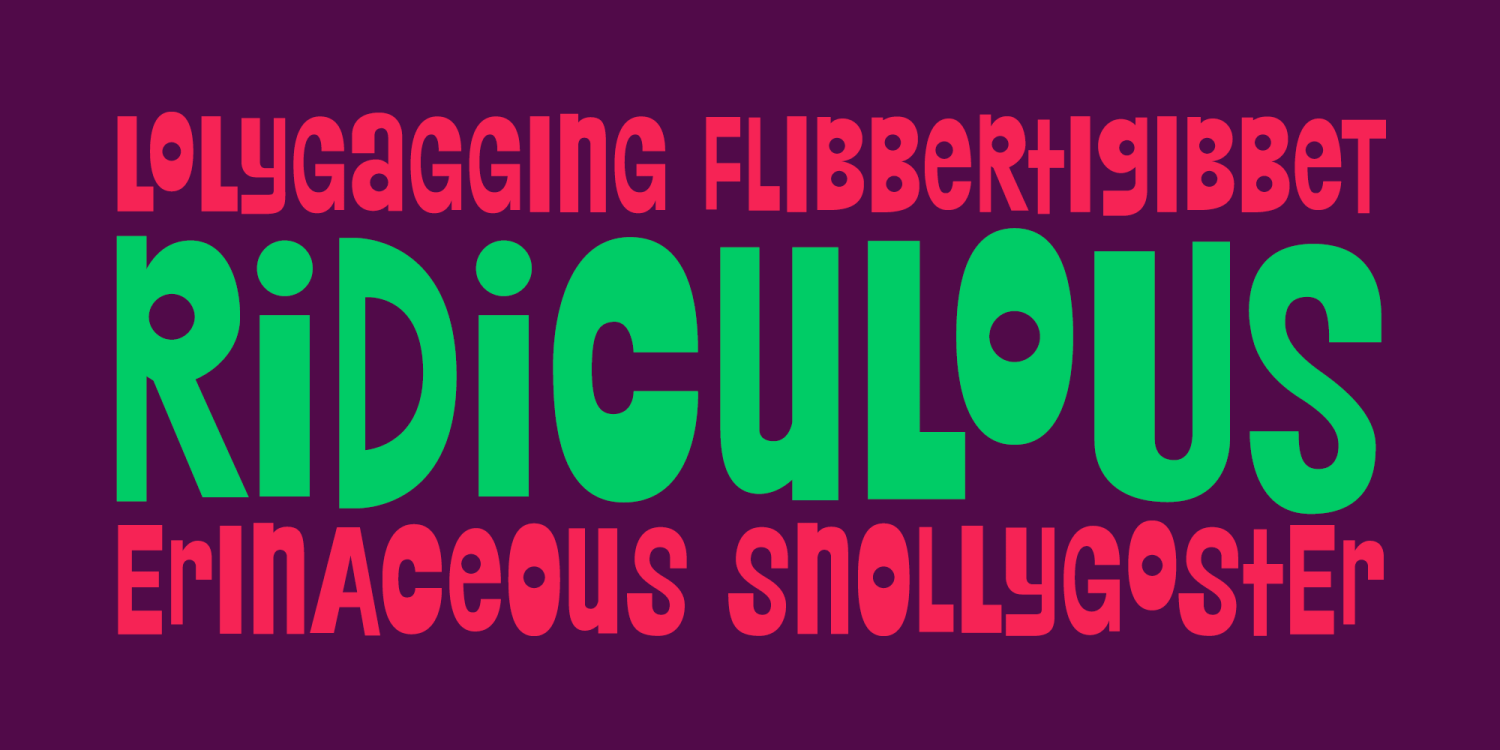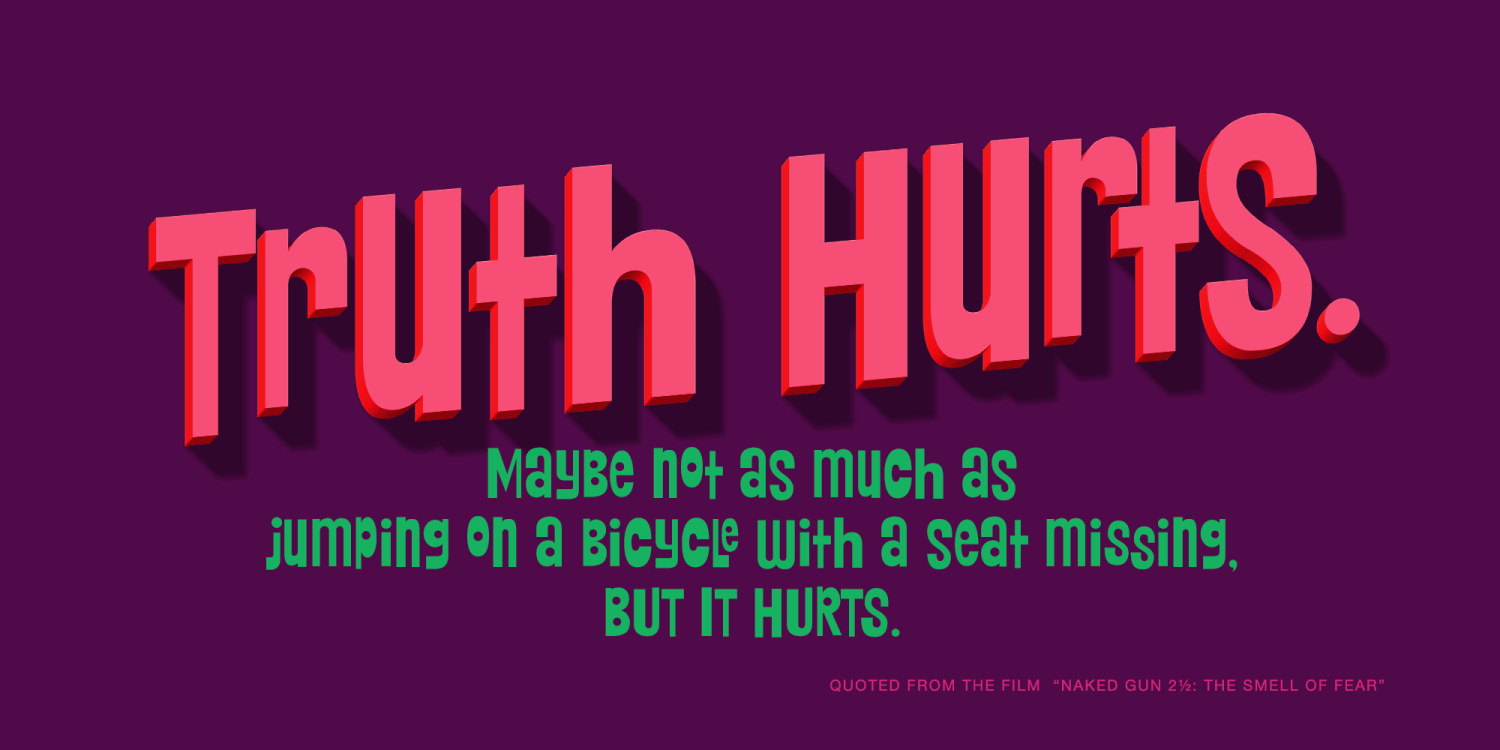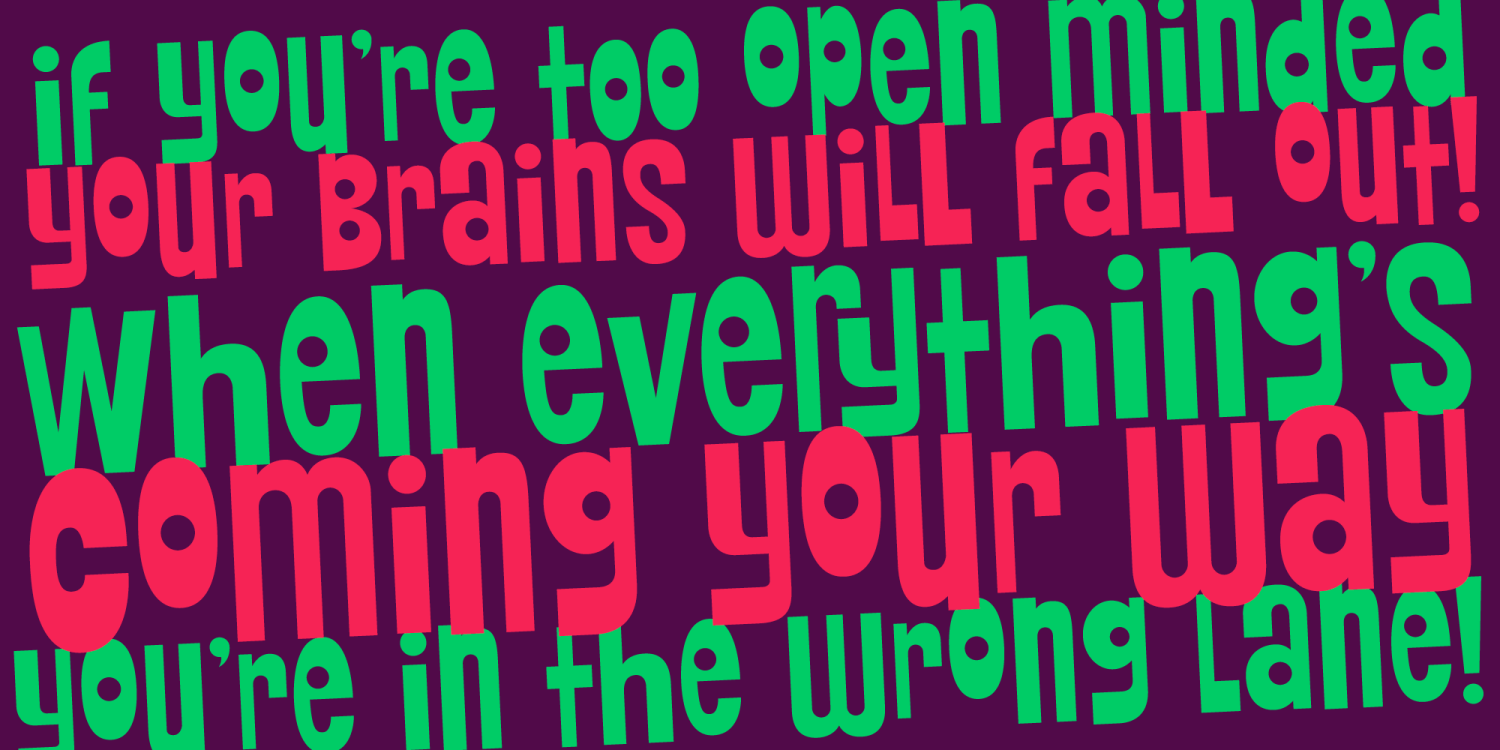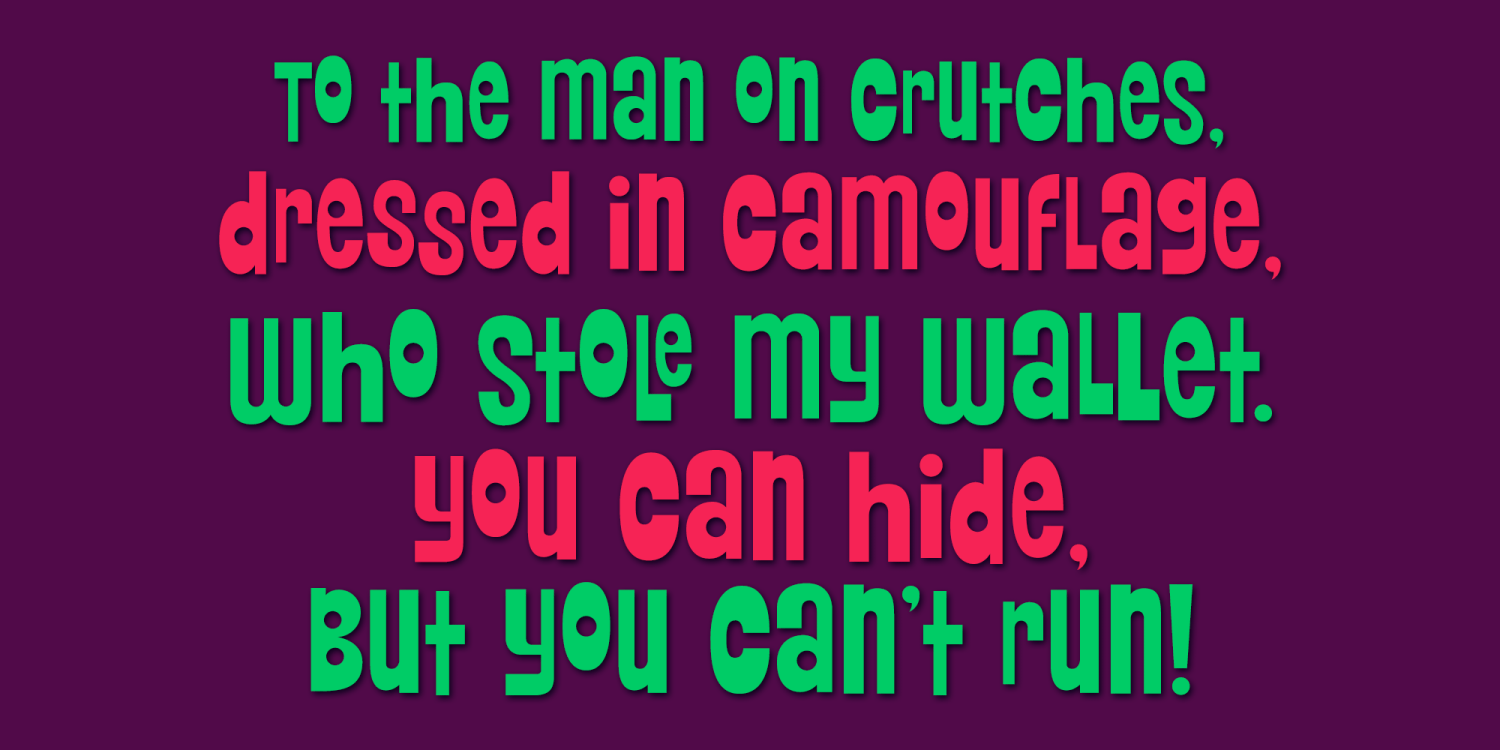
Ridiculous
Ridiculous is a complete whack-a-doodle sans-serif font inspired by the titling sequence from the 1964 film, "Yours, Mine, and Ours". Fun and full of personality, it is a lettering style that is completely insane. With ligatures enabled, the font will auto-substitute between cases for an even more random appearance.
With a pseudo unicase character set, and offbeat letter weighting, Ridiculous is pure lunacy to typeset with, with ligature combinations that are quirky surprises. You'll find this font will live up to it's name.